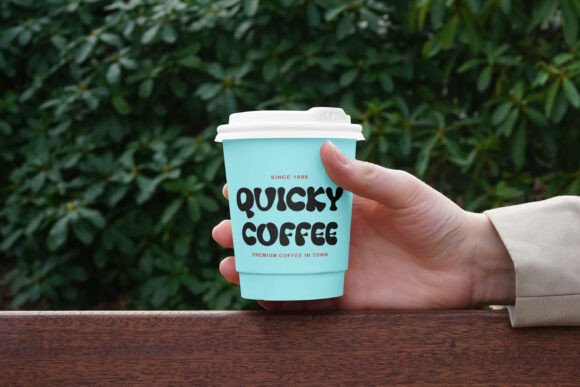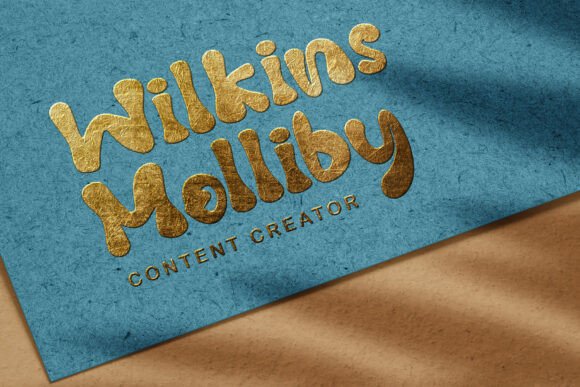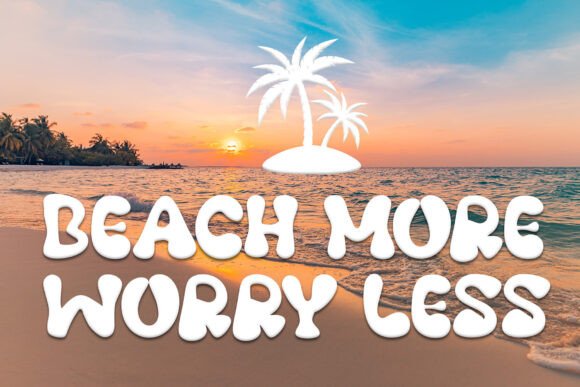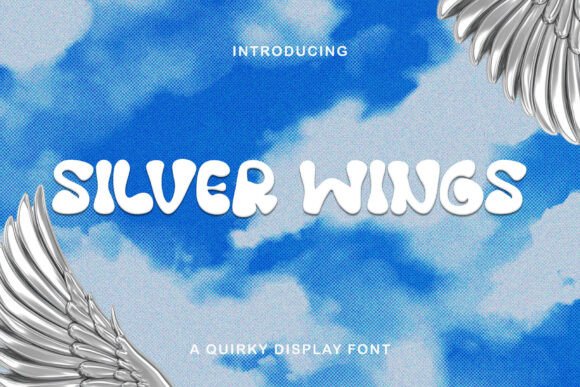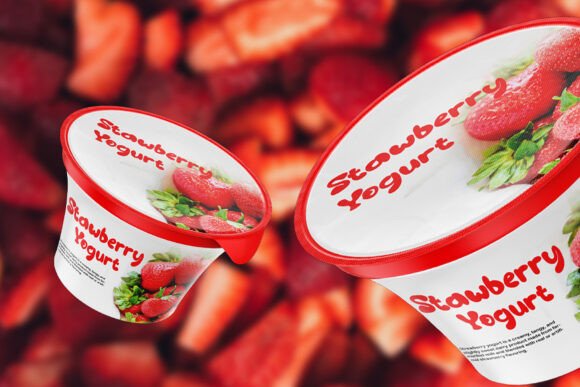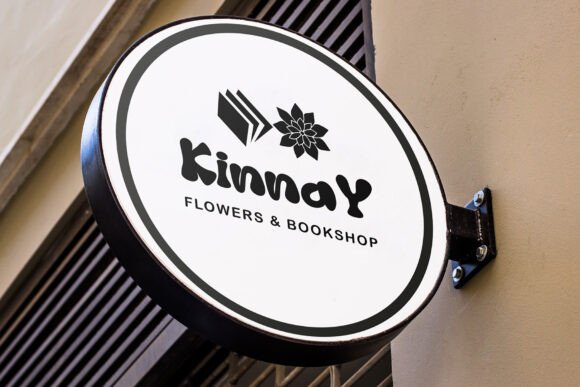
Introduction to Silver Wings Font
Silver Wings is a quirky and playful bubble font.
Perfect for brand logo, apparel design, clothing, fashion, creative industry, signature, headline/title on poster, brochure, packaging, wedding invitation, quotes, magazine, social media etc .
Key Features of Silver Wings Font
Why Choose Silver Wings Font?
Silver Wings Font offers exceptional quality and versatility, making it a valuable addition to your design toolkit. Whether you’re creating for personal projects or commercial use, Silver Wings Font delivers professional results.